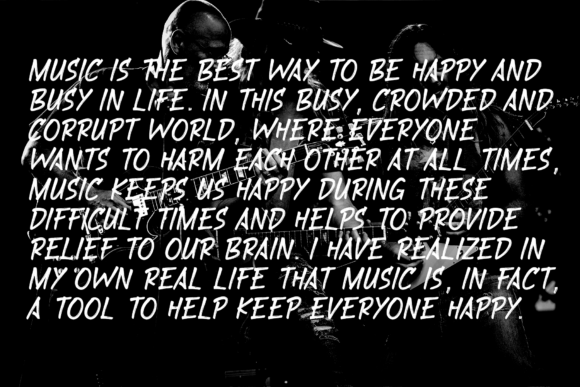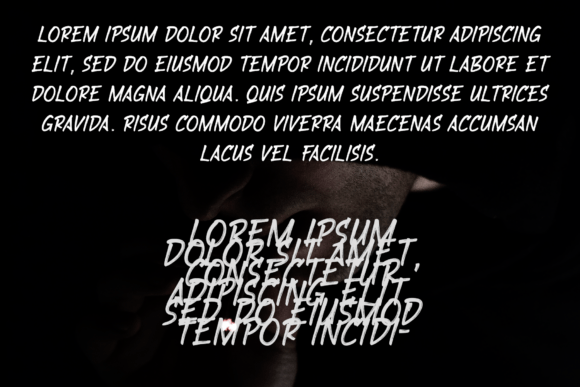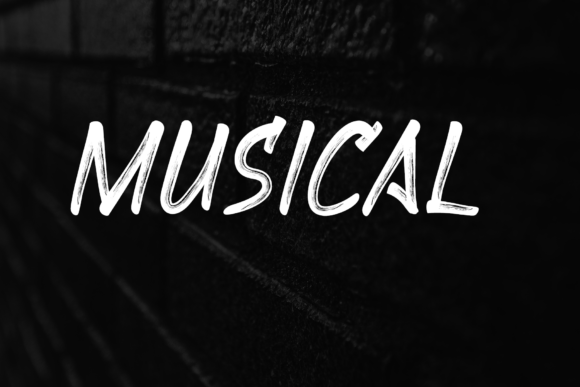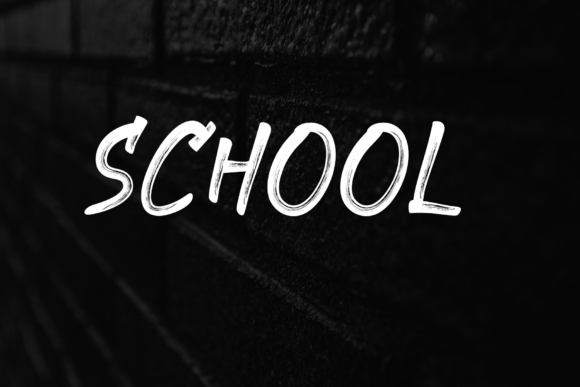
Grock Brush Font: Unleashing Creativity with Dynamic Typography
In the world of typography, few fonts manage to capture the essence of creativity and spontaneity as effectively as Grock Brush Font. This dynamic typeface combines the raw energy of hand-painted brush strokes with a modern, edgy twist, making it a perfect choice for designers looking to add a touch of personality to their work. With its unique blend of organic charm and modern sophistication, Grock Brush Font is sure to leave a lasting impression on your audience.
The Unique Characteristics of Grock Brush Font
One of the standout features of Grock Brush Font is its distinct, slightly rough texture, reminiscent of brushstrokes made with broad strokes and varying pressure. This unevenness adds a touch of organic charm to the characters, giving them a handcrafted feel that’s hard to replicate with digital fonts. The irregular shapes and slight irregularities in the strokes create a sense of movement and vitality, injecting life into any design it’s used for.
The letters in Grock Brush Font possess a certain degree of unpredictability, as if they were painted on the fly. This sense of spontaneity makes the font perfect for designs that aim to capture attention and convey a sense of energy and creativity. Whether you’re working on a logo, a poster, or a social media graphic, Grock Brush Font is sure to add a touch of personality to your design.
Versatility and Functionality
Despite its unique character, Grock Brush Font is surprisingly versatile and functional. The font offers a wide range of uppercase characters, numerals, punctuation marks, and special symbols, making it suitable for a variety of design applications. Whether you’re working on a branding project, a packaging design, or a digital advertisement, Grock Brush Font has everything you need to create a cohesive and effective design.
The font’s careful attention to detail ensures a cohesive and harmonious aesthetic that effortlessly blends modern and traditional elements. The result is a font that feels both contemporary and timeless, making it perfect for designers who want to create a lasting impression.
Grock Brush Font is a perfect choice for designers and crafters who want to add a touch of personality to their work. The font’s unique character and versatility make it suitable for a wide range of design applications, from branding and packaging to digital advertising and social media graphics.
For designers, Grock Brush Font offers a unique opportunity to create eye-catching and memorable designs that stand out from the crowd. The font’s handcrafted feel and organic charm make it perfect for designs that aim to convey a sense of creativity and spontaneity.
For crafters, Grock Brush Font is a great choice for adding a personal touch to handmade projects. Whether you’re working on a DIY craft project or a handmade card, Grock Brush Font can add a touch of personality and whimsy to your design.
Tips for Using Grock Brush Font
To get the most out of Grock Brush Font, here are a few tips to keep in mind:
- Use Grock Brush Font in large sizes to maximize its impact. The font’s unique character and texture are best appreciated in larger sizes.
- Combine Grock Brush Font with simpler fonts to create a striking contrast and add visual interest to your design.
- Don’t be afraid to get creative and experiment with different design elements, such as shapes and patterns, to add a personal touch to your design.
| Author | Portype Studio |
Grock Brush Font is a dynamic and eye-catching typeface that combines the raw energy of hand-painted brush strokes with a modern, edgy twist. With its unique character, versatility, and functionality, Grock Brush Font is perfect for designers and crafters who want to add a touch of personality to their work. Whether you’re working on a branding project, a packaging design, or a digital advertisement, Grock Brush Font is sure to leave a lasting impression on your audience.
So why settle for ordinary typography when you can unleash your creativity with Grock Brush Font? Try it out today and discover the power of dynamic typography!